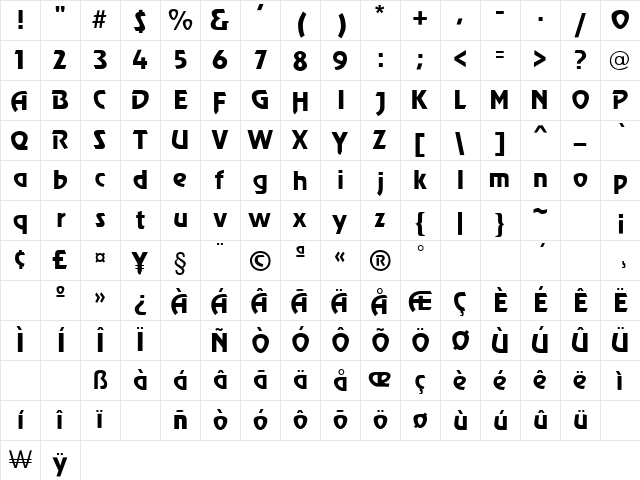
Review Regular
Review Family
Design Context for Review
Review is a composed and adaptable typeface that performs quietly and consistently across a wide range of design contexts.